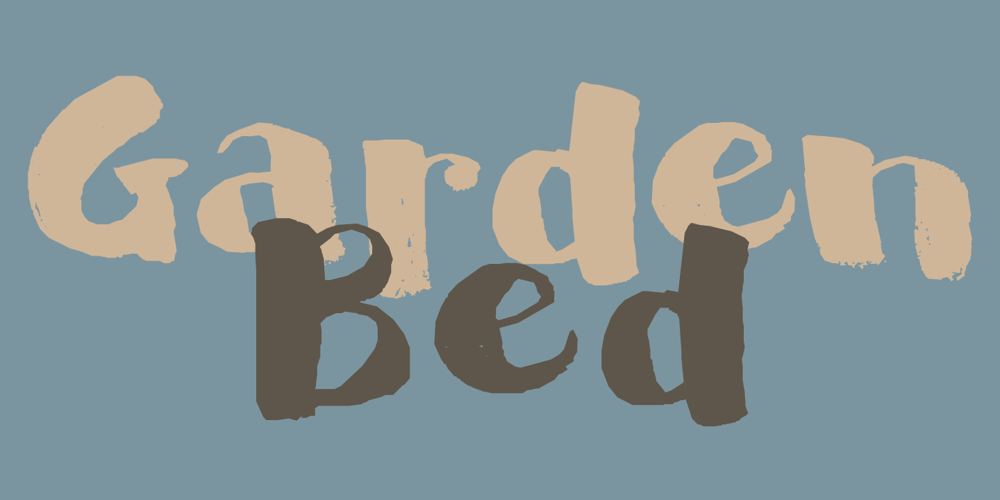
Garden Bed Font Family was designed by David Kerkhoff and published by Hanoded. Garden Bed contains 1 styles and family package options. A couple of weeks ago, I found my ink well, which I thought I had lost. I decided (there and then) to create a bunch of inky brush fonts, which resulted in Dirrrty and Scrawny Cat. And now, needless to say, Garden Bed. It is named after a strophe from one of my favorite Soundgarden songs: Just Like Suicide. Garden Bed is a hand made didone-ish font, with a very irregular baseline, some interesting glyphs and a secret garden filled with diacritics.